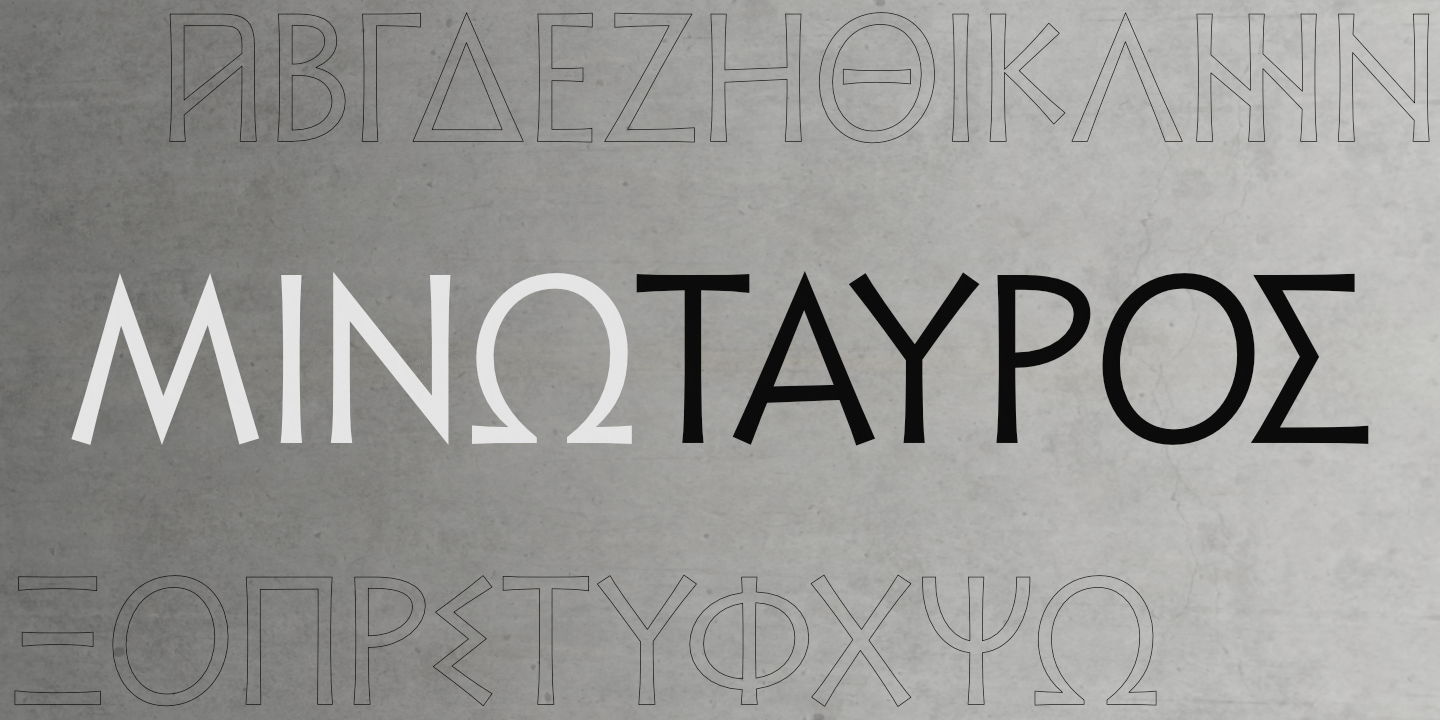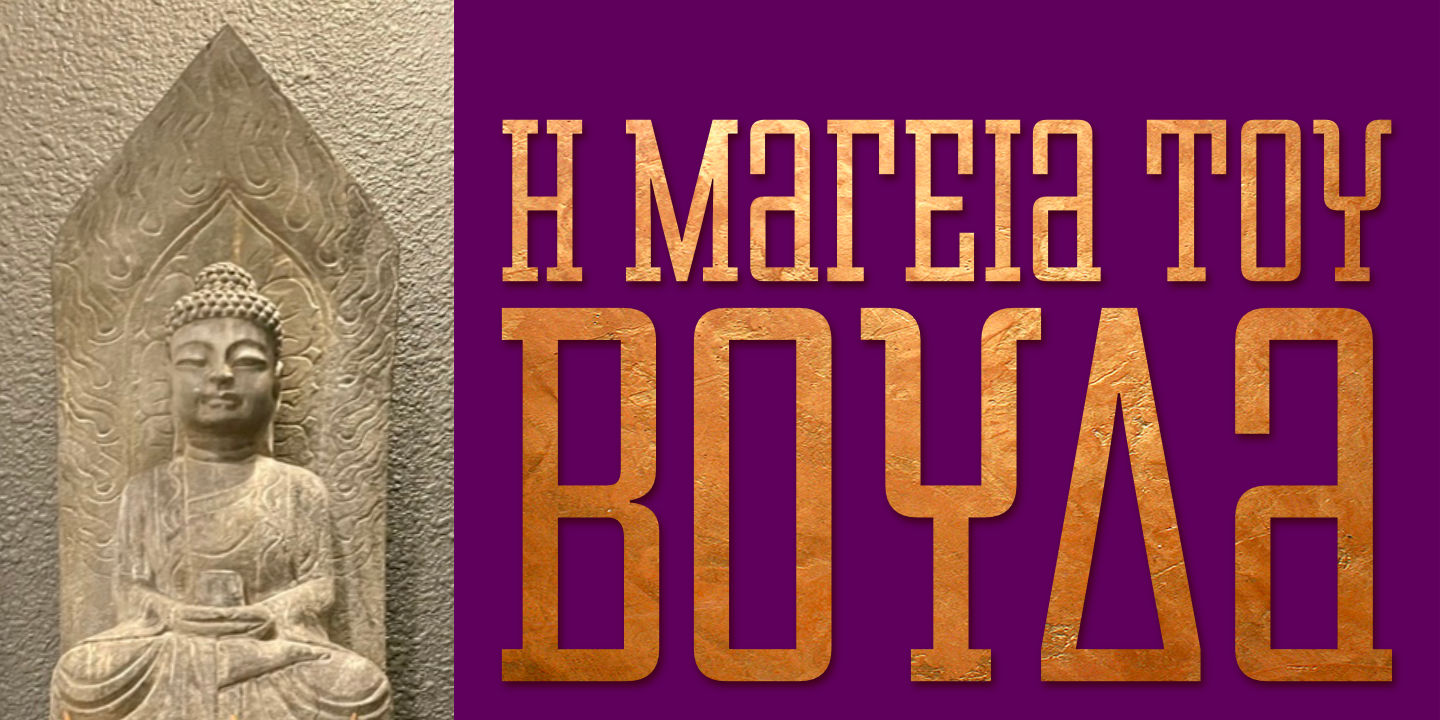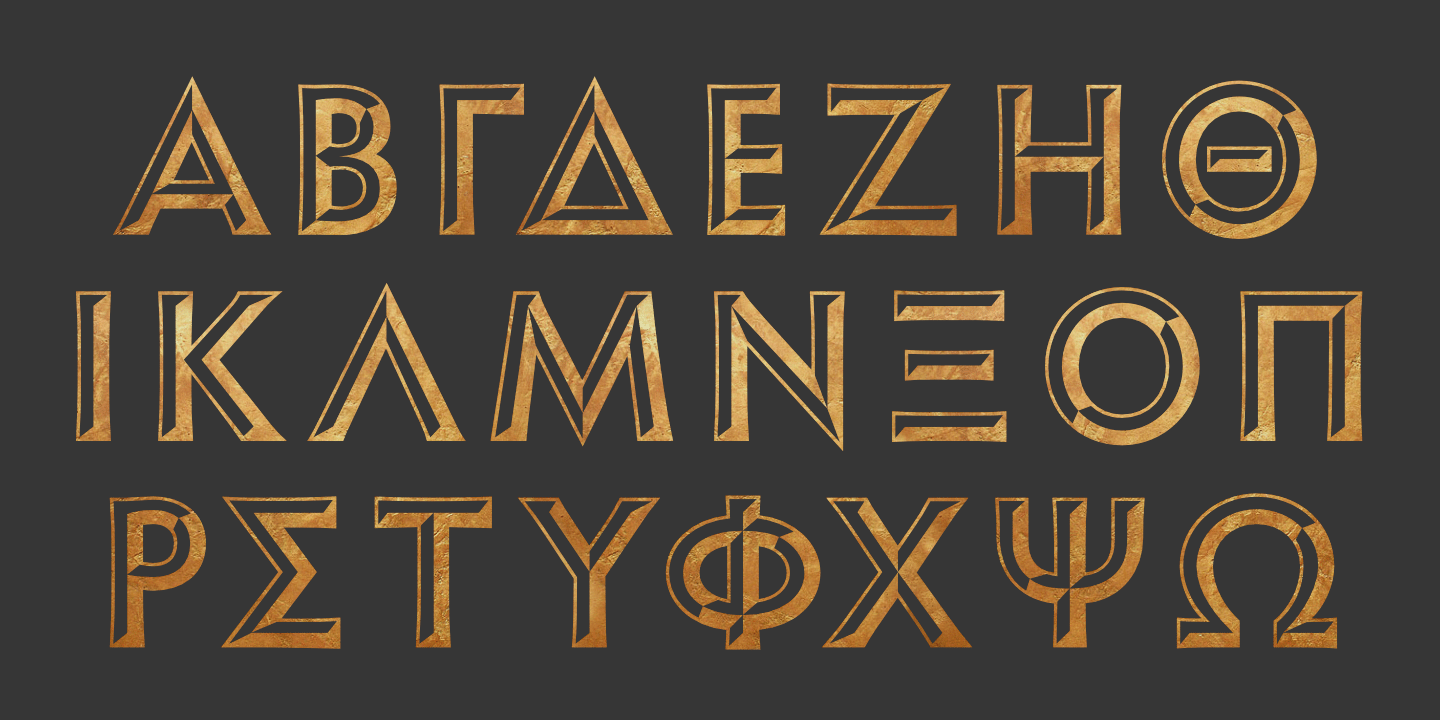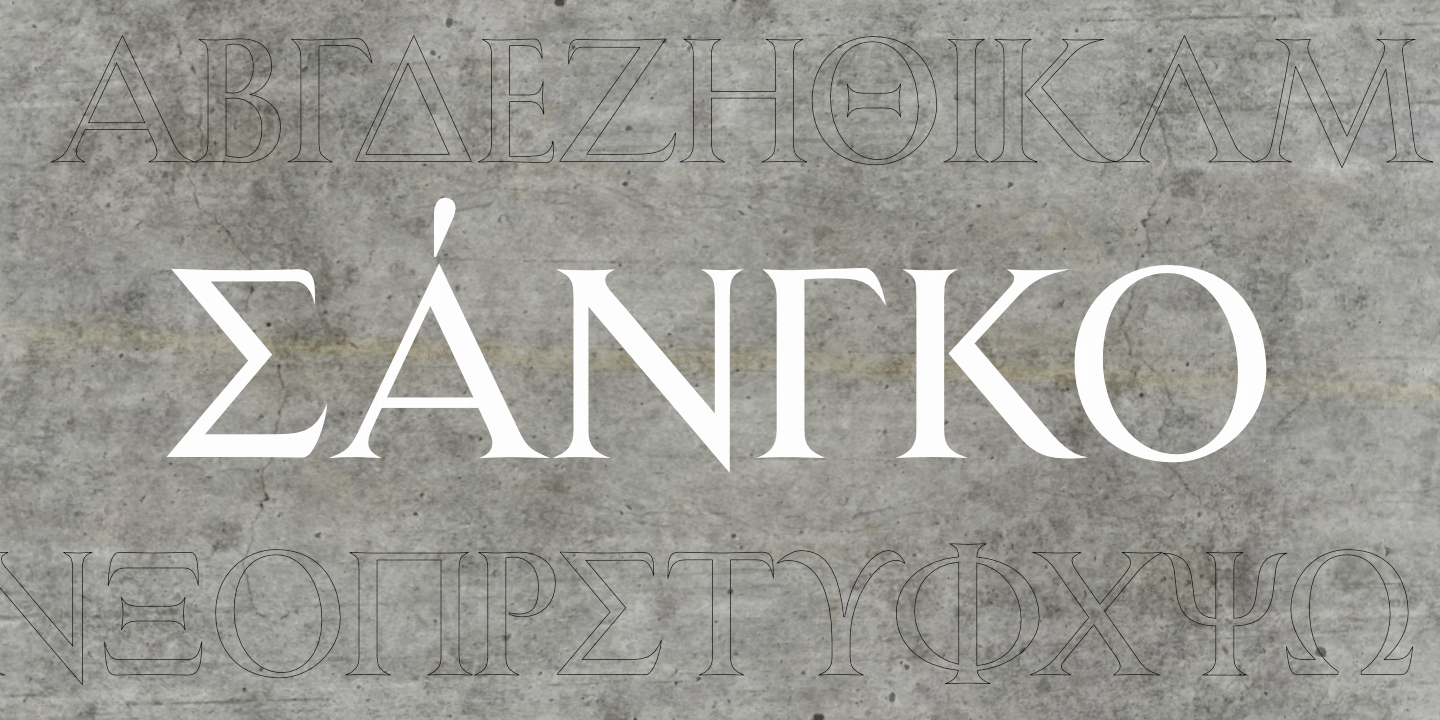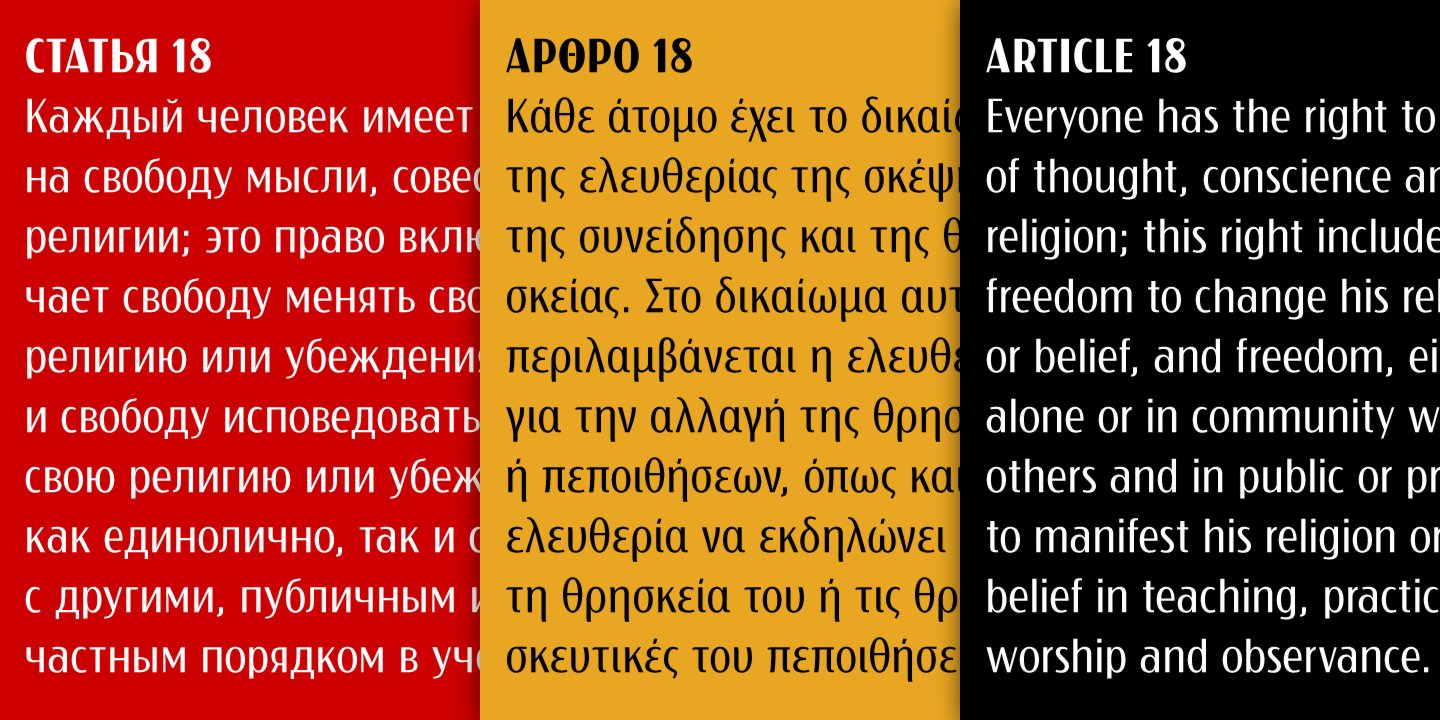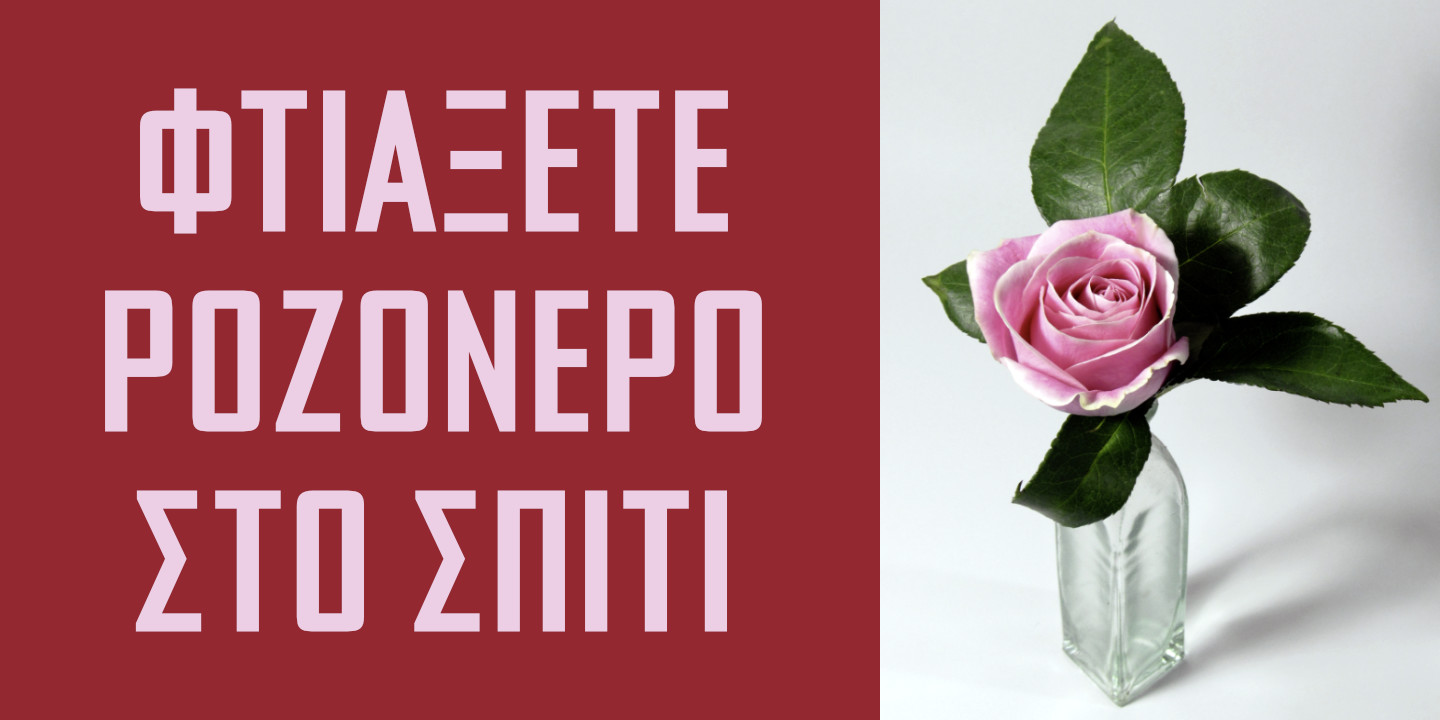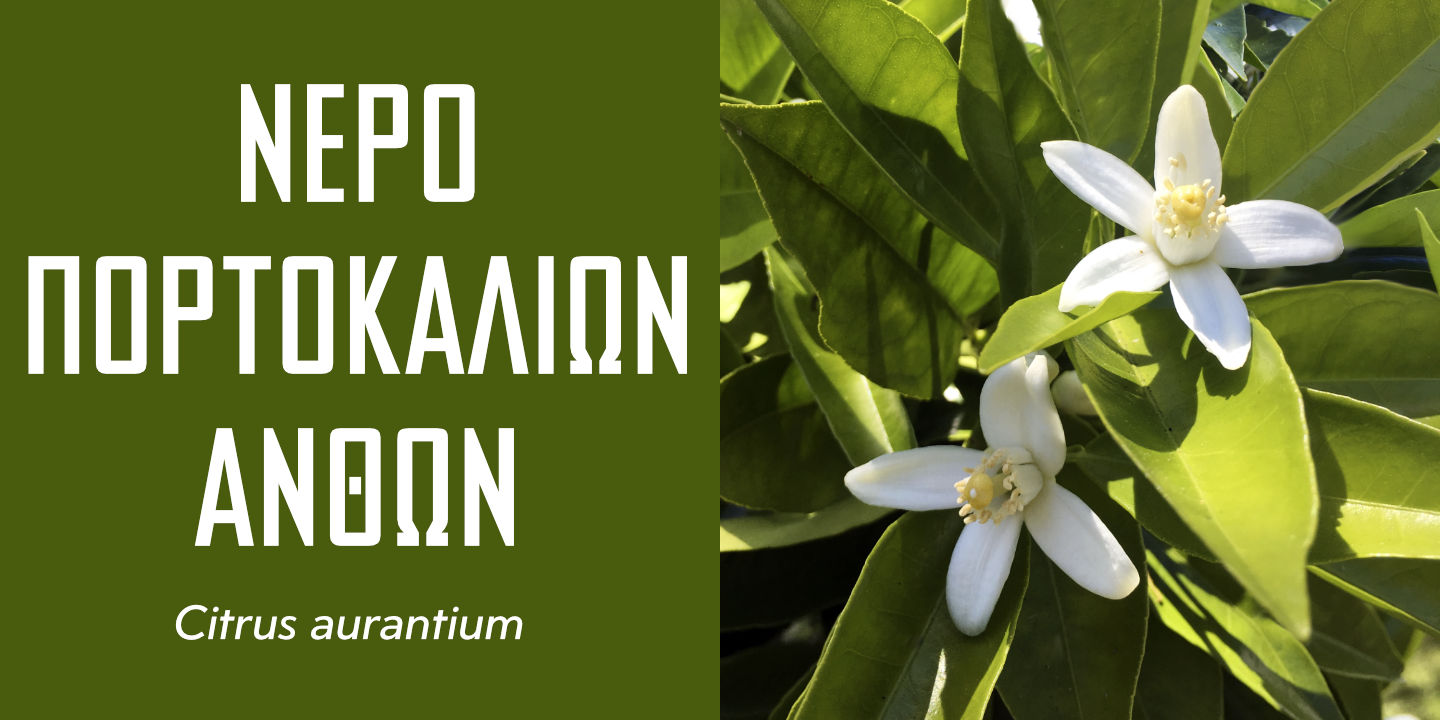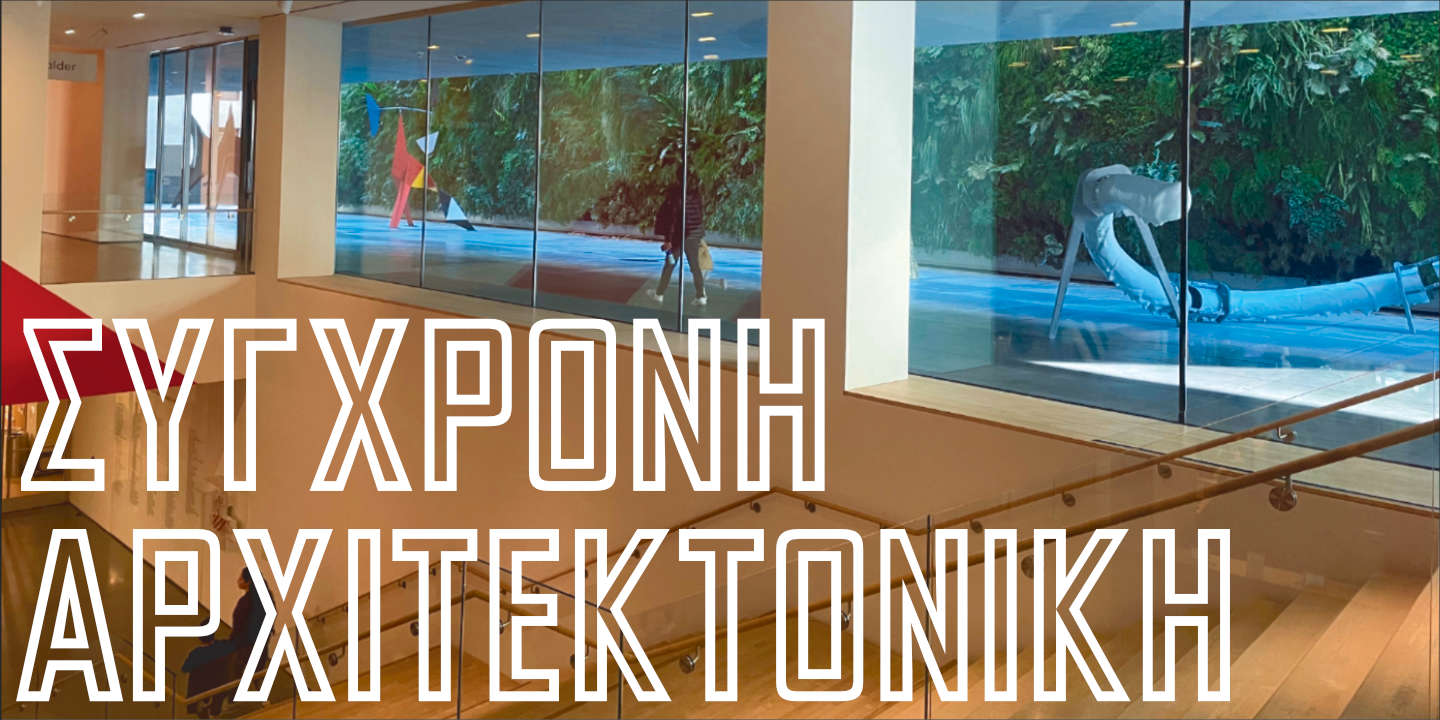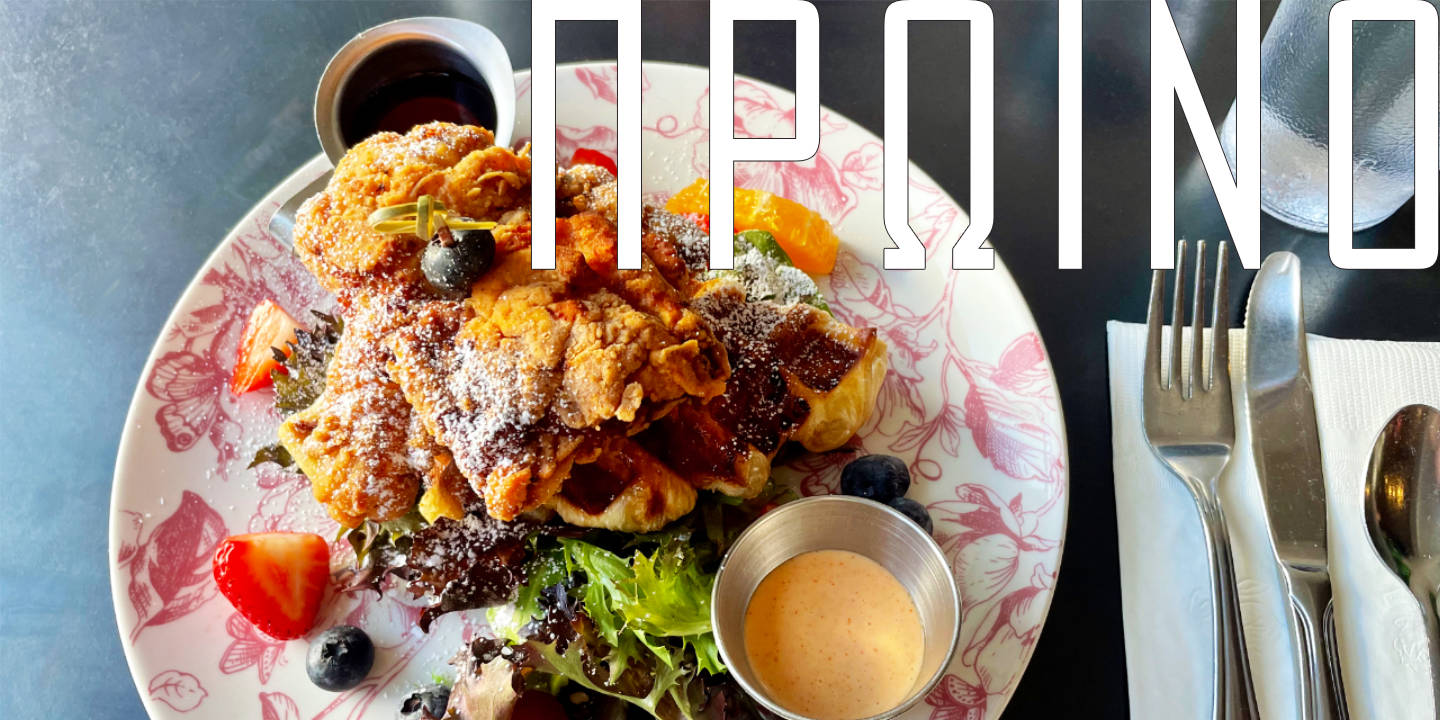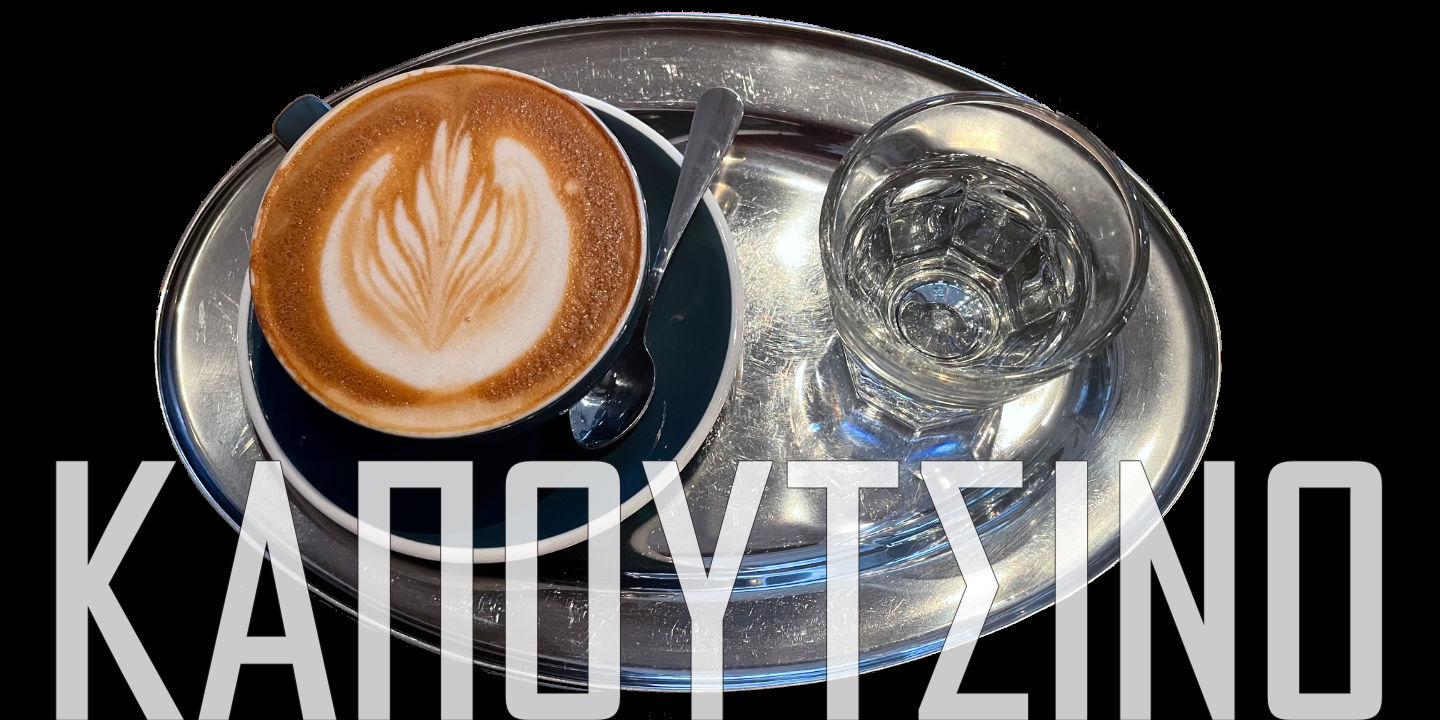
CastleType Library: Greek Fonts
Agency Gothic CT Bold
Originally designed by American type designer Morris Fuller Benton in 1933, Agency Gothic is a wonderful, narrow, squarish art deco typeface.
Agency Gothic Condensed
Originally designed by American type designer Morris Fuller Benton in 1933, Agency Gothic is a wonderful, narrow, squarish art deco typeface.
Agency Gothic CT Inline
Originally designed by American type designer Morris Fuller Benton in 1933, Agency Gothic is a wonderful, narrow, squarish art deco typeface.
Agency Gothic CT Light
Originally designed by American type designer Morris Fuller Benton in 1933, Agency Gothic is a wonderful, narrow, squarish art deco typeface.
Agency Gothic CT Medium
Originally designed by American type designer Morris Fuller Benton in 1933, Agency Gothic is a wonderful, narrow, squarish art deco typeface.
Agency Gothic CT Open
Originally designed by American type designer Morris Fuller Benton in 1933, Agency Gothic is a wonderful, narrow, squarish art deco typeface.
Brasileiro
Brasileiro™, a CastleType Original, is an art deco design inspired by the seven letters used for the logotype of the Brazilian magazine 'Para Todos' from the 1920s. Described as "great fun" and "impressionante e exuberante."
Carlos Light
Carlos was inspired by a Spanish typeface designed by German designer, Carlos Winkow, called 'Elektra'. Carlos supports most European languages that use the Latin alphabet as well as Cyrillic and modern Greek.
Carlos Medium
Carlos was inspired by a Spanish typeface designed by German designer, Carlos Winkow, called 'Elektra'. Carlos supports most European languages that use the Latin alphabet as well as Cyrillic and modern Greek.
Carlos Bold
Carlos was inspired by a Spanish typeface designed by German designer, Carlos Winkow, called 'Elektra'. Carlos supports most European languages that use the Latin alphabet as well as Cyrillic and modern Greek.
Zuboni Stencil
Zuboni Stencil is a bold, uppercase-only typeface based on a Russian design from around 1920 (original designer unknown). Its extensive character set supports most European languages that use the Latin or Cyrillic alphabets as well as modern (monotonic) Greek.